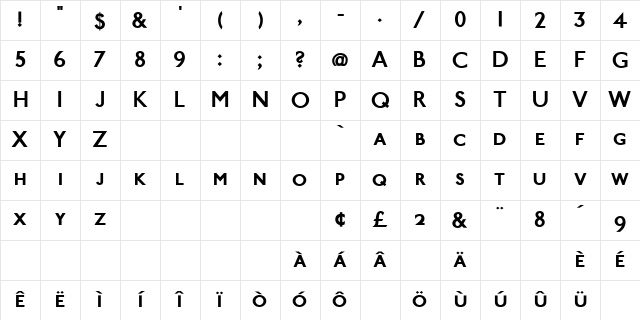
Complete PaddingtonSC Bold Small Caps Demi glyph index. Displaying only characters natively supported by PaddingtonSC Bold Small Caps Demi font.
PaddingtonSC Bold Small Caps is a composed and adaptable typeface that performs quietly and consistently across a wide range of design contexts. Its bold stroke weight gives it real presence on the page.